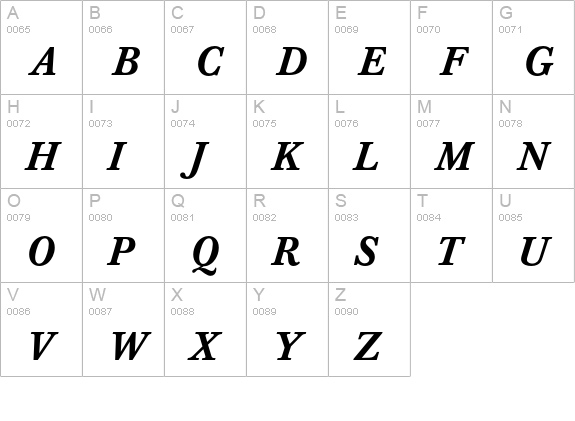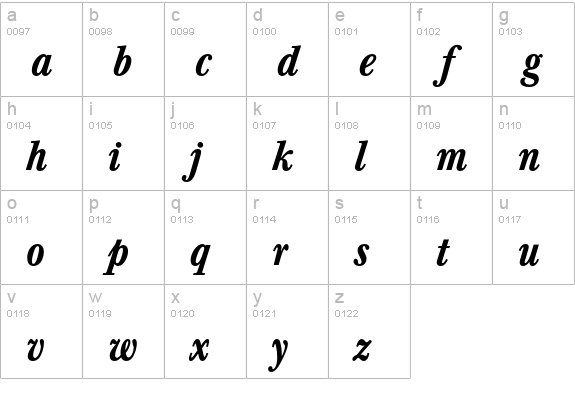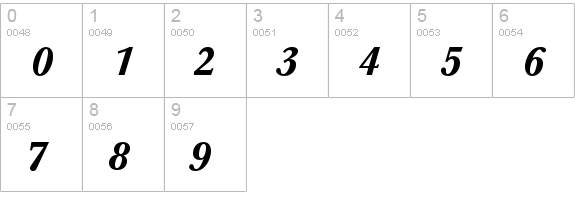
Berthold Baskerville Medium Italic is a balanced, medium-weight, italic variant in the Berthold typeface family \xE2\x80\x94 well suited to sub-headlines, navigation, and balanced editorial work.
The Berthold Baskerville Medium Italic font is a timeless and elegant typeface that exudes sophistication and class. Its delicate slant adds a touch of flair to any design, making it perfect for conveying a sense of style and refinement. The graceful curves and sharp serifs of this font create a harmonious balance between tradition and modernity, making it a versatile choice for a wide range of design projects. What sets Berthold Baskerville Medium Italic apart is not only its exquisite design but also its accessibility - it is available for free download at FontsMarket.com. This means that designers and creatives can easily access this premium font without any cost, making it a valuable addition to their font library. Whether used for editorial design, branding, or web design, Berthold Baskerville Medium Italic is sure to elevate any project with its timeless beauty and sophistication.